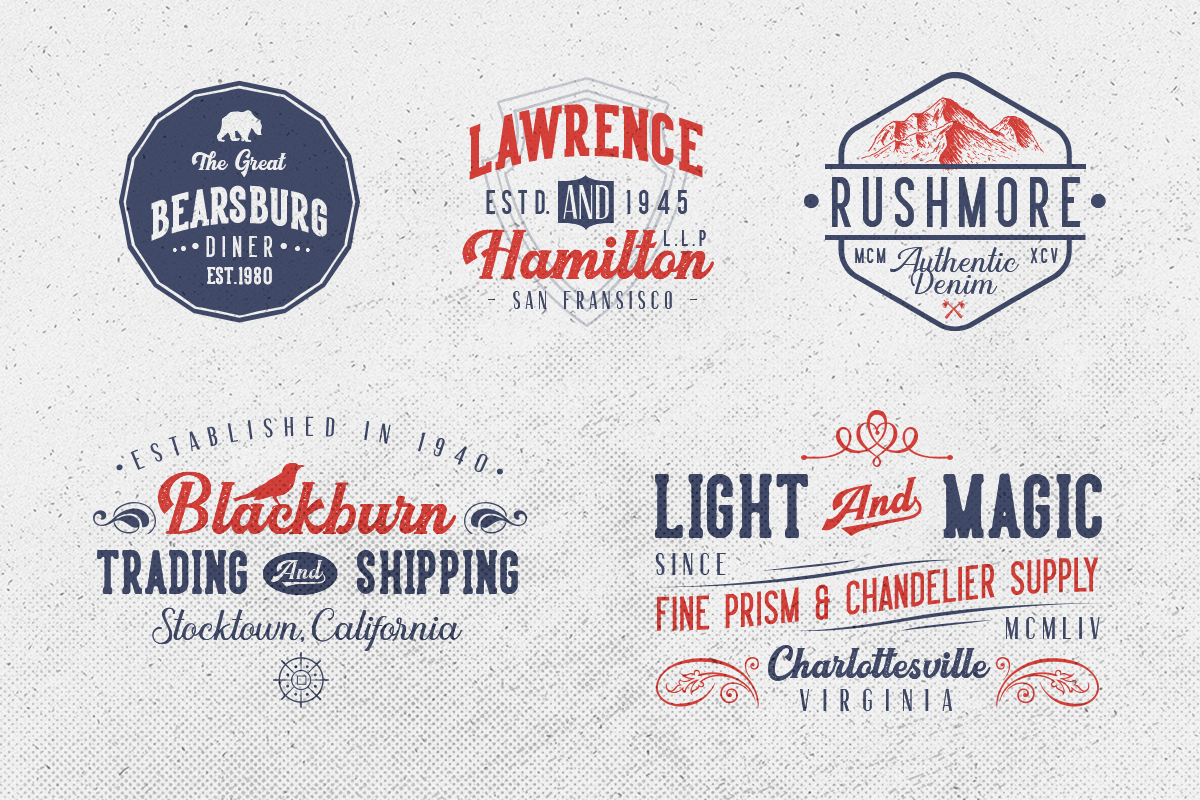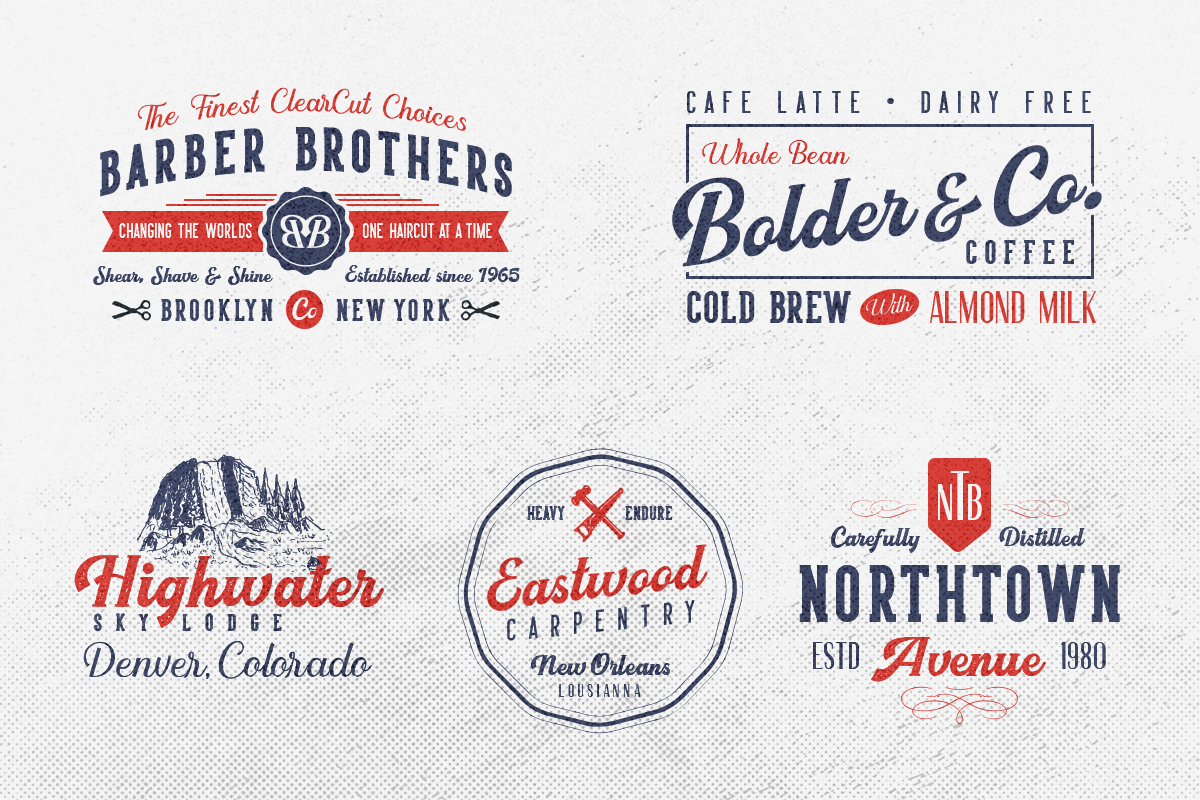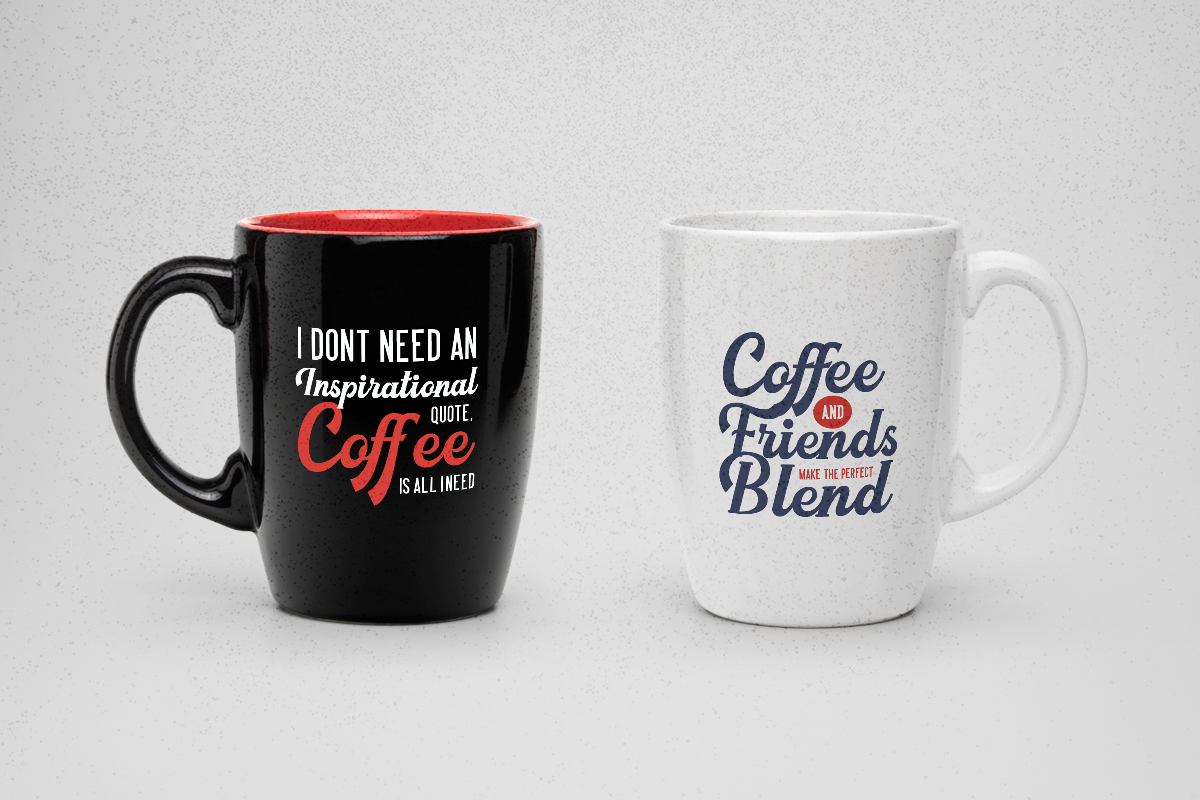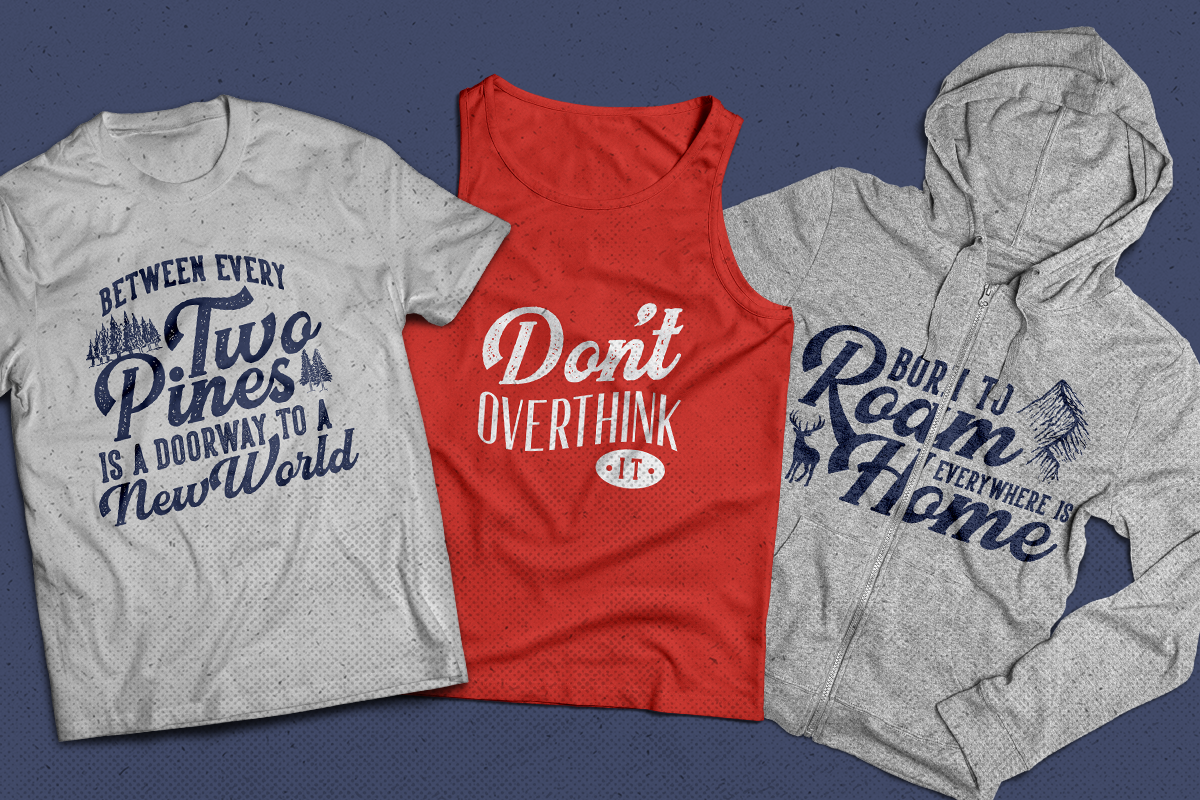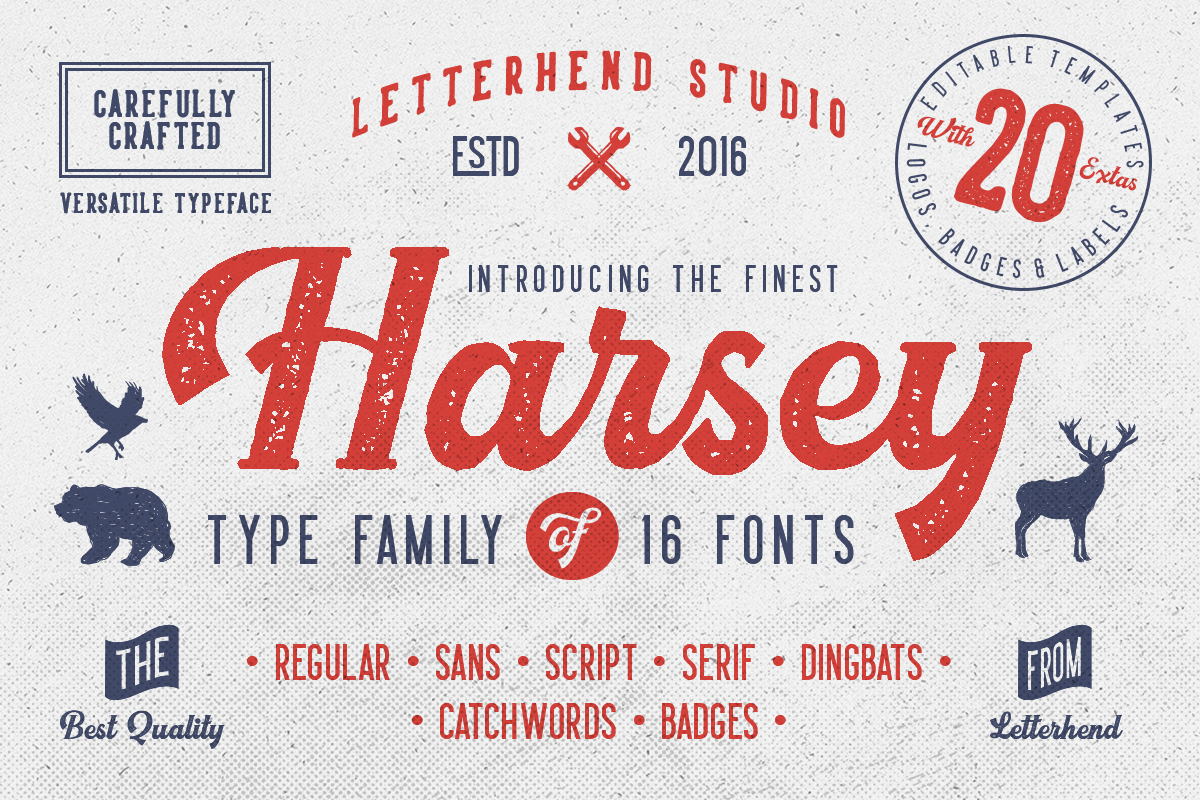
Harsey Type Toolbox
Introducing, Harsey Type Toolbox. One of our best-designed product that we ever created. This product consist of many styles such as script, sans, serif, and also includes dingbats, catchwords and badges all comes in font format. This product is also includes 20 premade badges / labels which all elements are still editable so you can simply create your own in just a sec. What makes this product even more special is you can use and combine all these fonts perfectly matched altogether.
What will you get in this awesome font family set :
- LS Harsey Regular
- LS Harsey Rough
- LS Harsey Monoline
- LS Harsey Script
- LS Harsey Sans One
- LS Harsey Sans Two
- LS Harsey Serif Block
- LS Harsey Serif Outline
- LS Harsey Serif Regular
- LS Harsey Serif Rough
- LS Harsey Catchwords Sans
- LS Harsey Catchwords Script
- LS Dingbats Animals
- LS Dingbats Badge
- LS Dingbats Outdoor
- LS Dingbats Tools
- 20 editable logo / badge / label